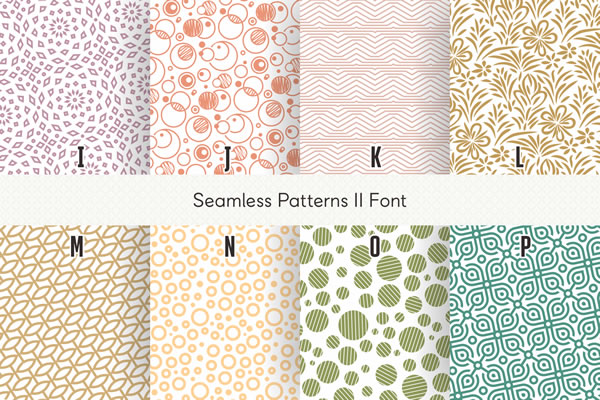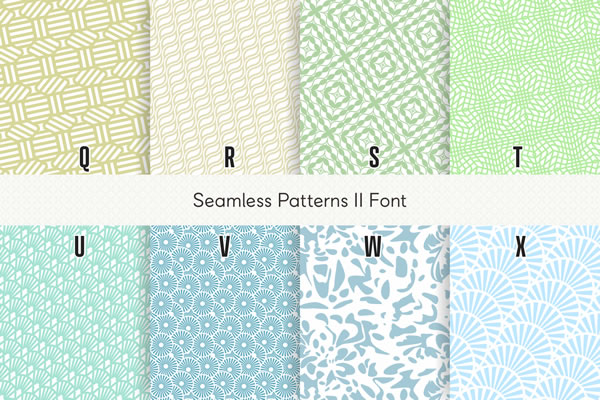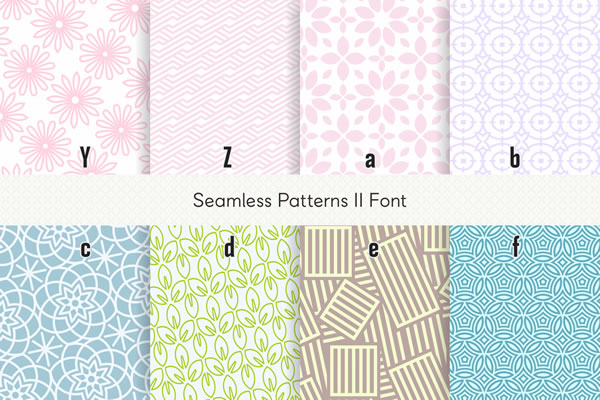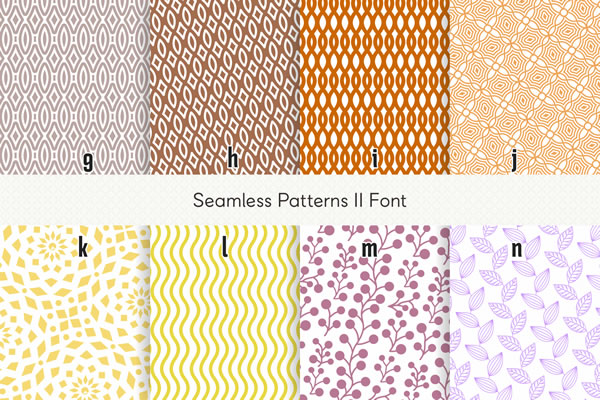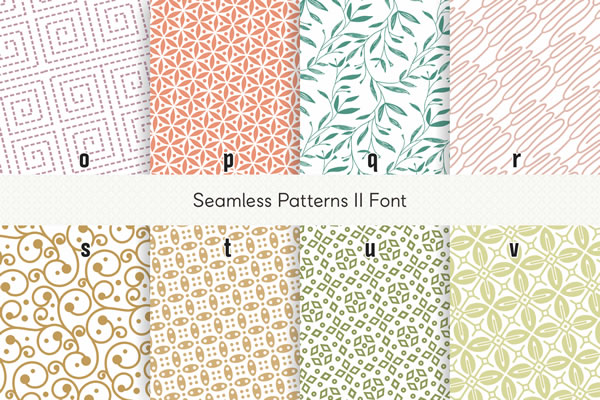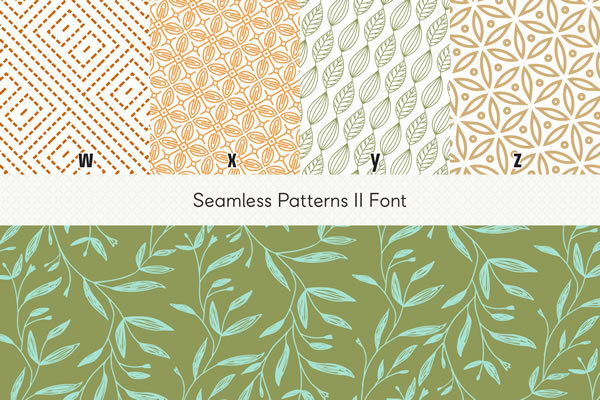
Introduction to Seamless Patterns II Font
This stunning dingbat font created by Situjuh Nazara contains 63 unique seamless patterns.
You can just type text like you normally would and create a unique seamless pattern, for example: These patterns can be repeated over and over again and are conveniently wrapped up in one stunning font You can easily color these seamless patterns by just changing the color of the font as you would normally do.
Key Features of Seamless Patterns II Font